geometric R mark
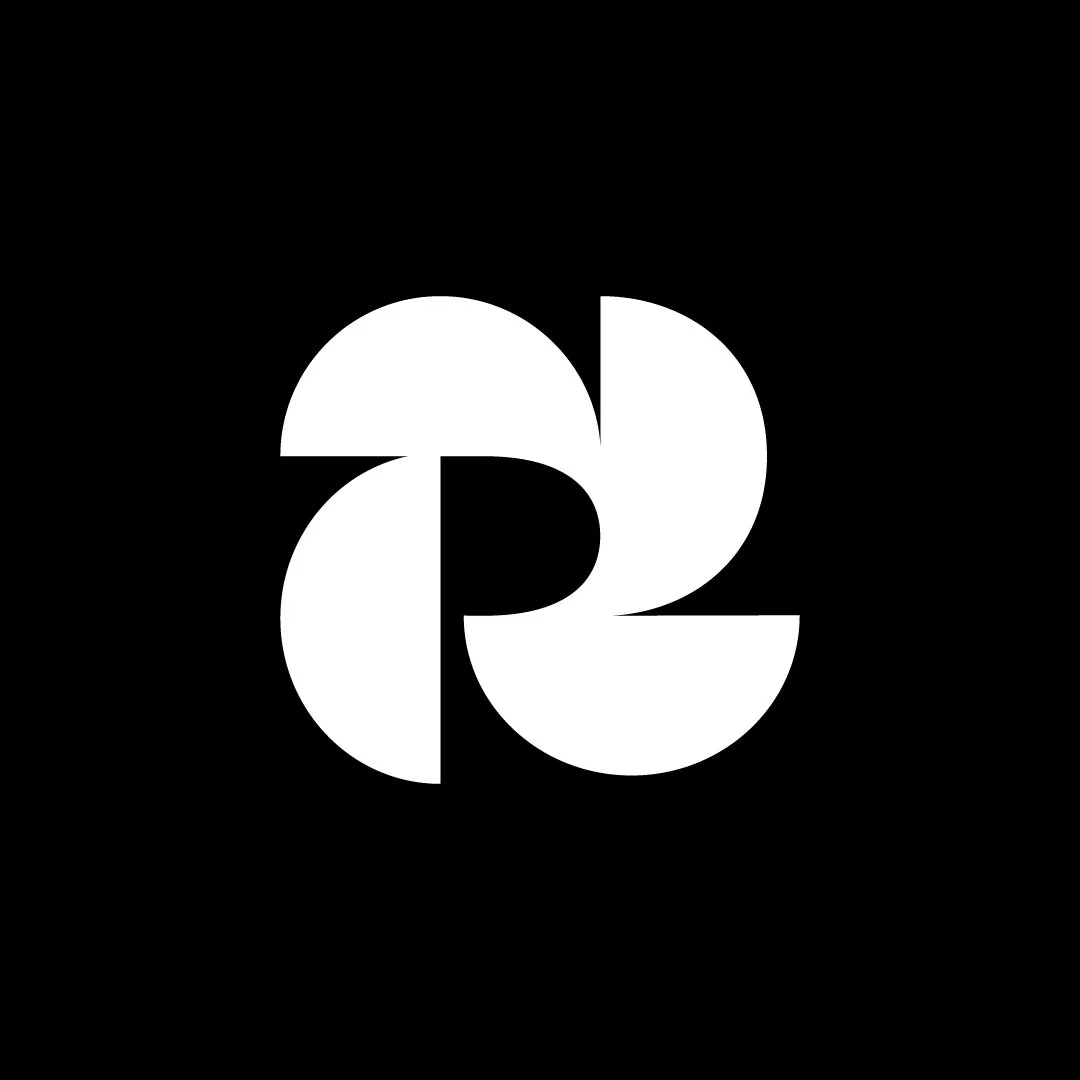
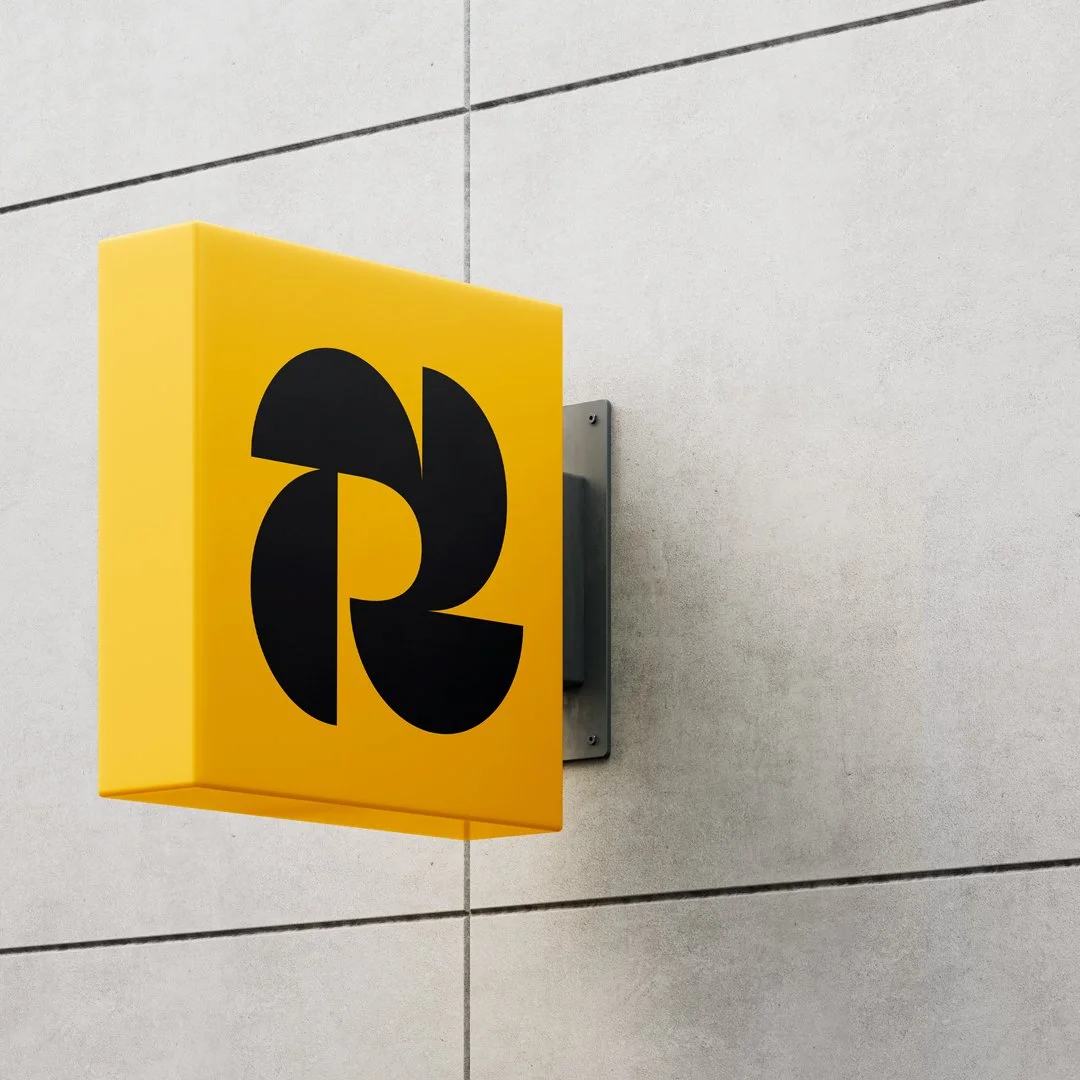
geometric R mark
A letter-based mark cleverly formed by 4 semicircles. Could fit brands in the field of sports, sporting goods, gym equipment, weightlifting, etc.